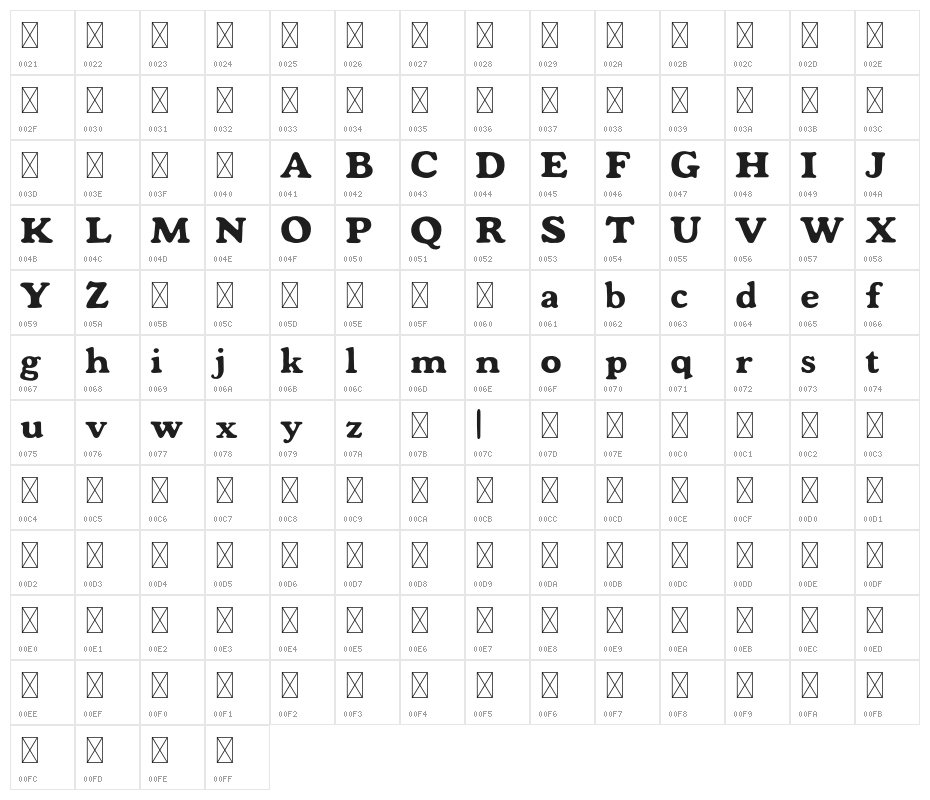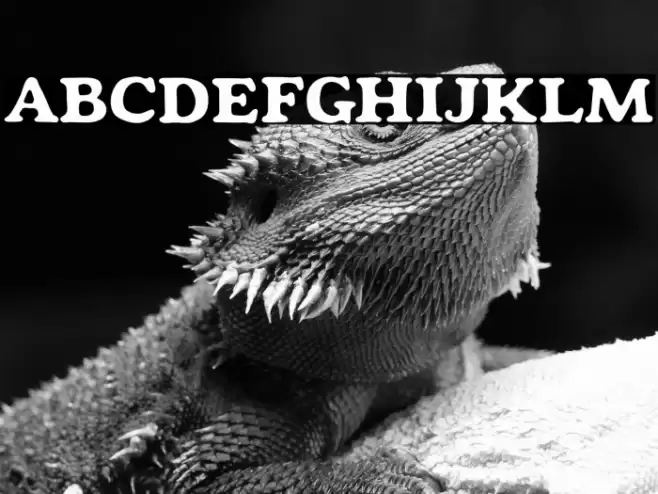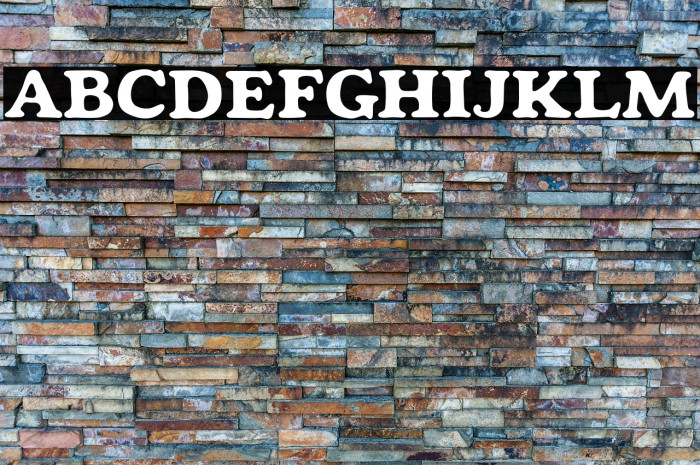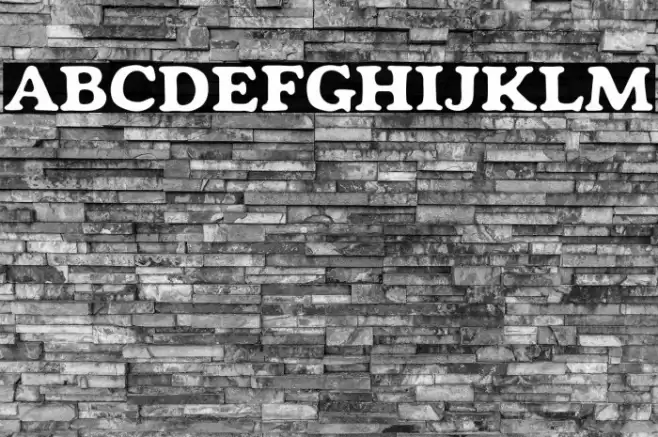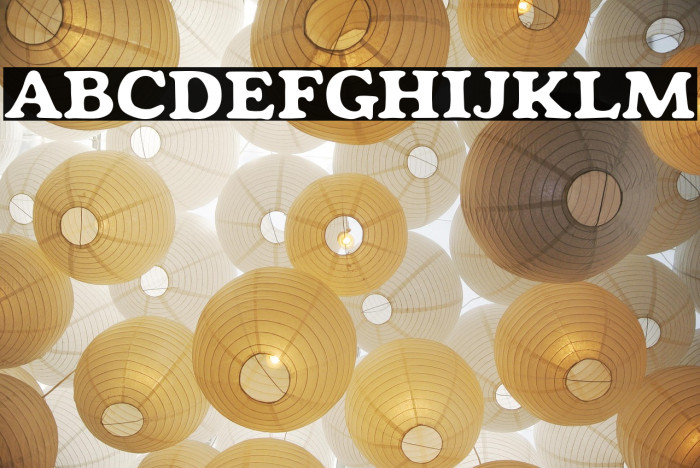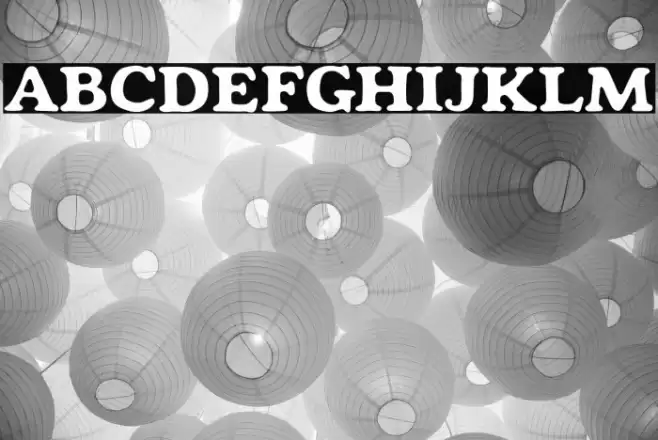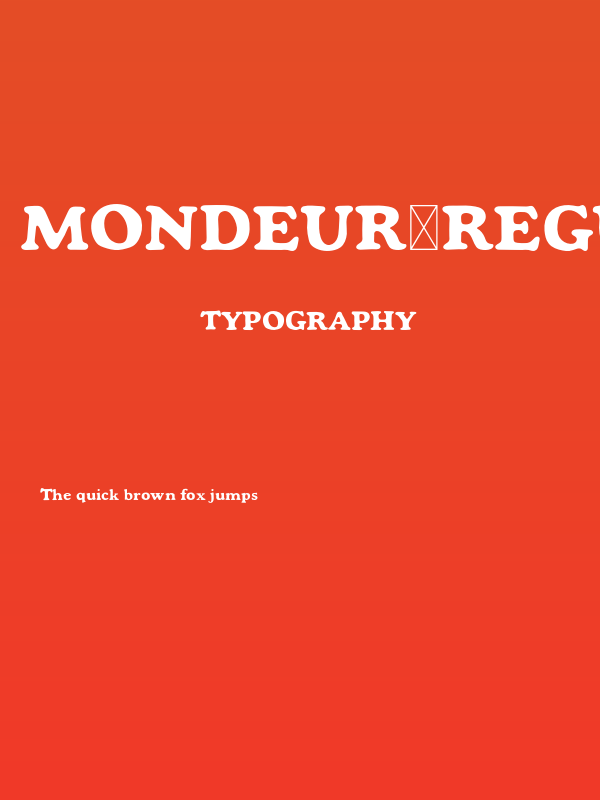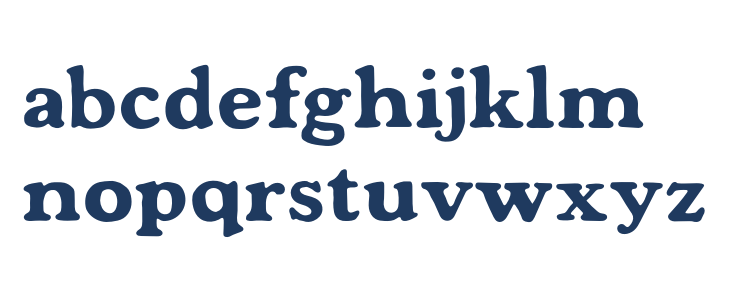
Mondeur-Regular Font
Mondeur-Regular Description
This font features a bold and robust design with a strong presence, characterized by its thick strokes and slightly rounded edges. The uppercase letters are uniform in height, providing a sense of stability and strength. The lowercase letters maintain a consistent style, with a slight flair that adds a touch of elegance. The font's overall appearance is reminiscent of traditional serif styles, yet it incorporates modern elements that make it versatile for various design applications. The spacing between characters is balanced, ensuring readability while maintaining a compact look. This font is suitable for projects that require a bold statement, such as headlines, logos, and branding materials.
| Proposed Projects | Ideal for headlines, logos, branding materials, and any design needing a strong, elegant presence. |